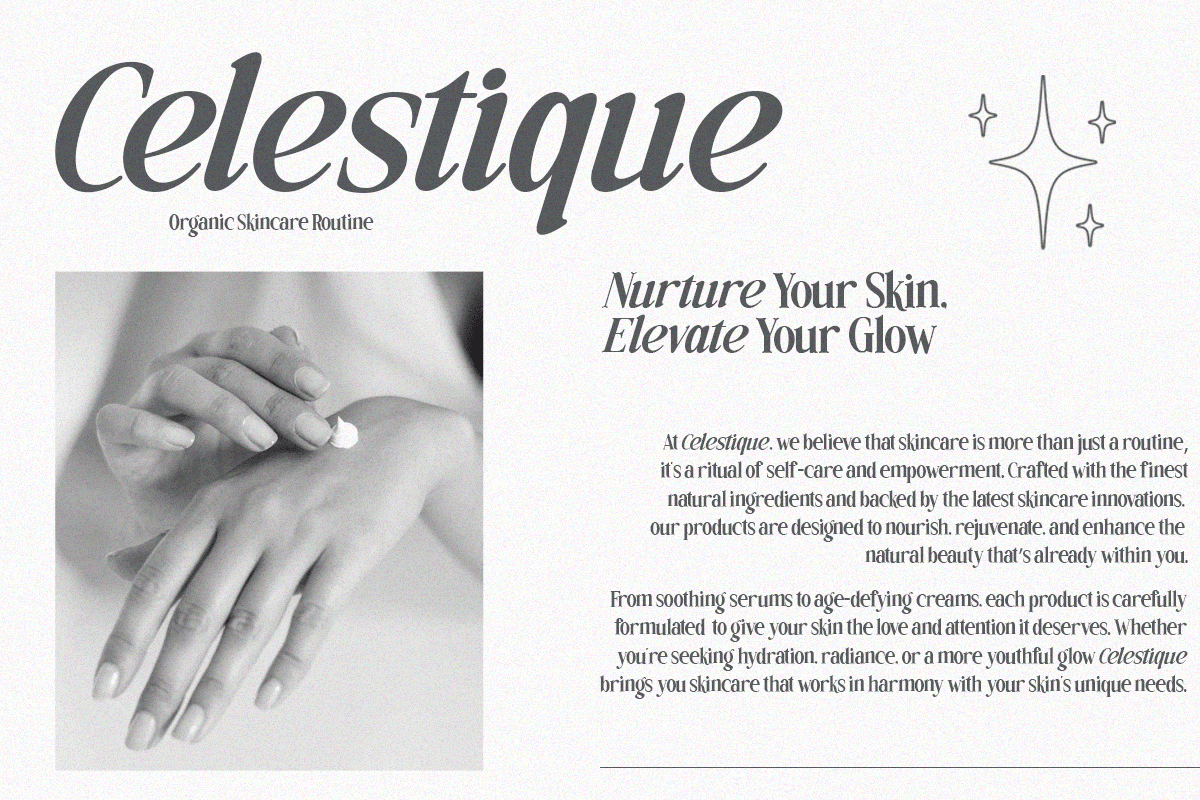
Snowflakes – Retro Serif Font
Snowflakes is a refined retro serif font that blends vintage elegance with contemporary sophistication. Inspired by classic editorial typography, it features graceful curves, stylish contrast, and beautifully crafted italic styles that bring warmth and personality to every design. Its timeless aesthetic makes it ideal for projects that seek a premium yet nostalgic visual identity.
Perfect for branding, fashion campaigns, magazines, beauty products, cosmetic packaging, luxury hotels, lifestyle brands, social media, websites, invitations, and editorial layouts, Snowflakes delivers exceptional versatility across both print and digital media. Whether you’re designing a sophisticated logo or creating captivating headlines, this font offers a luxurious presence with outstanding readability.
Snowflakes includes regular and italic styles, uppercase and lowercase letters, multilingual support, numerals, punctuation, and essential symbols, giving designers complete creative flexibility. From boutique branding and product packaging to elegant websites, advertising campaigns, and premium presentations, Snowflakes is the perfect serif font for creating timeless and memorable designs.
– Stylistic alternates
– Uppercase, Lowercase & Ligatures